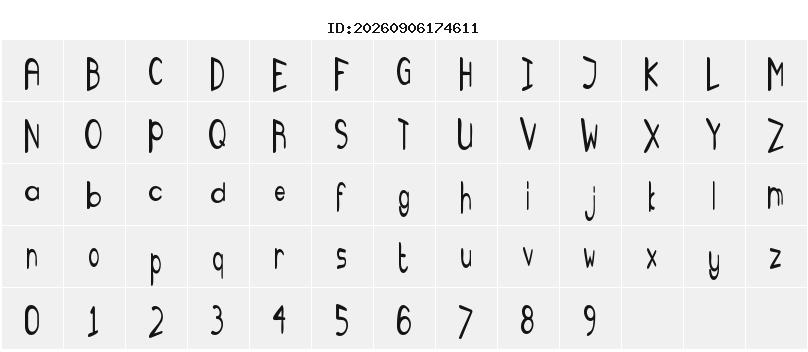
TM fanzine fame Preview
• Font Name: TM fanzine fame
About TM fanzine fame.ttf
TM fanzine fame.ttf is a modern, elegant sans-serif font designed for ultimate readability and visual harmony. Perfect for branding, headlines, web design, and print materials.